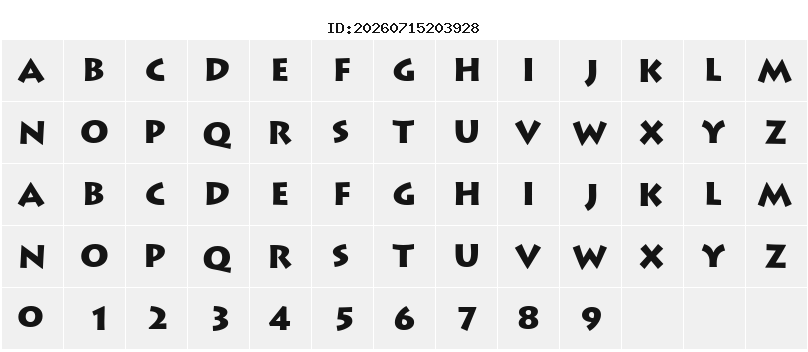
About AustereBlackCapsSSK.ttf
AustereBlackCapsSSK.ttf is a modern, elegant sans-serif font designed for ultimate readability and visual harmony. Perfect for branding, headlines, web design, and print materials.